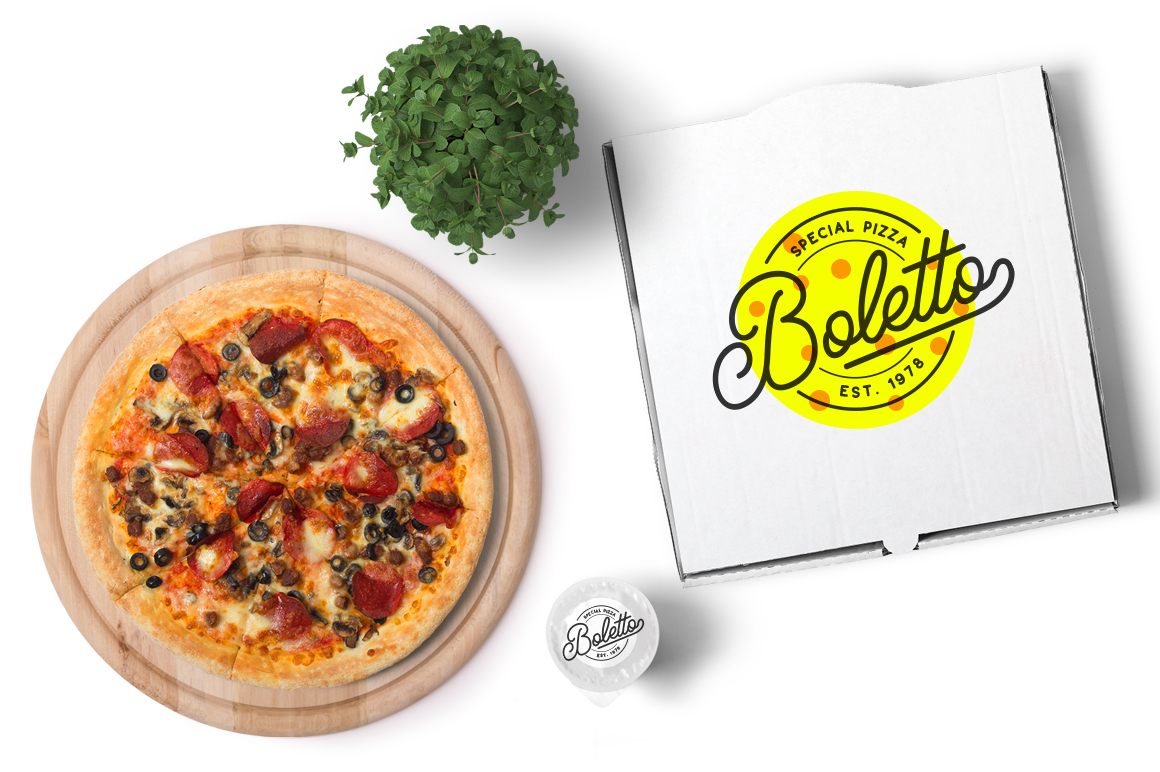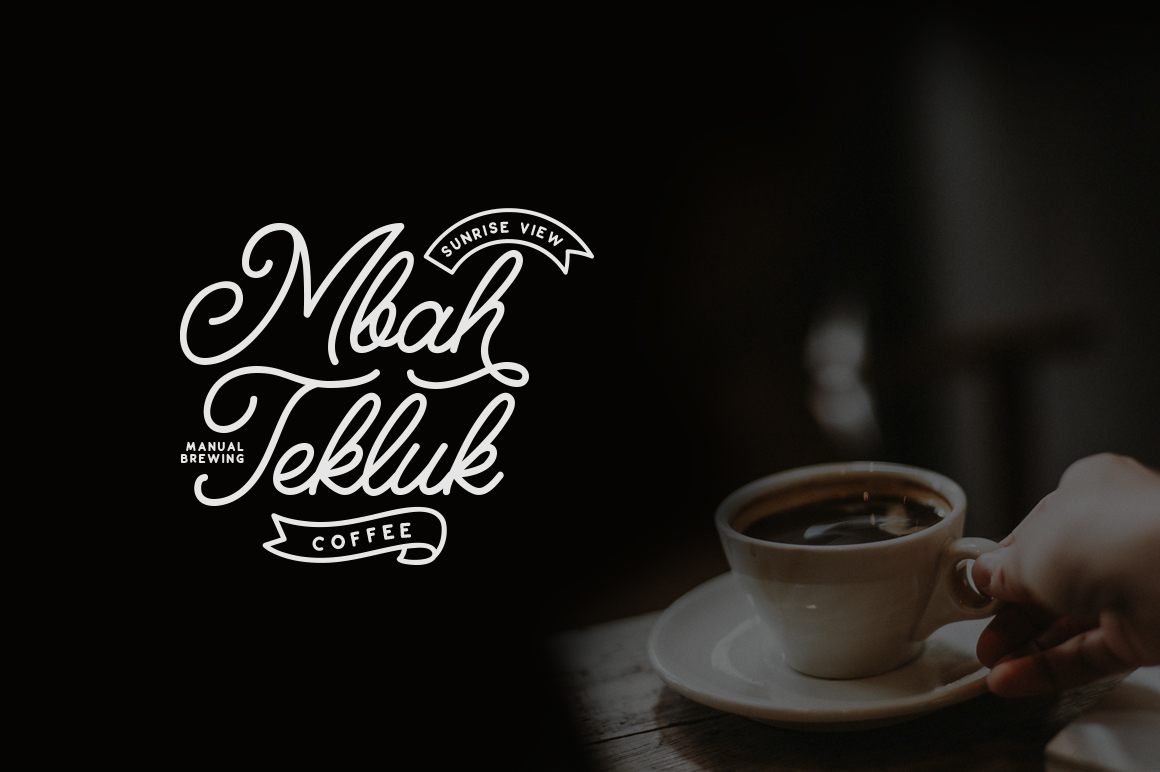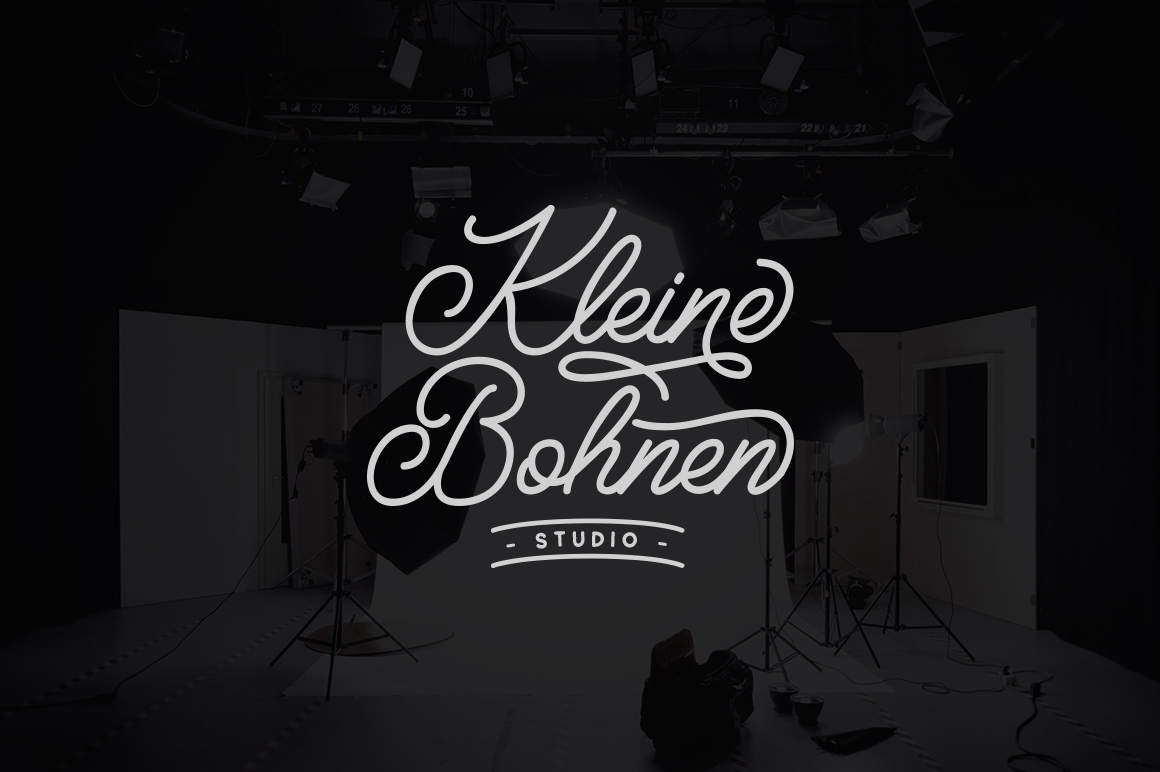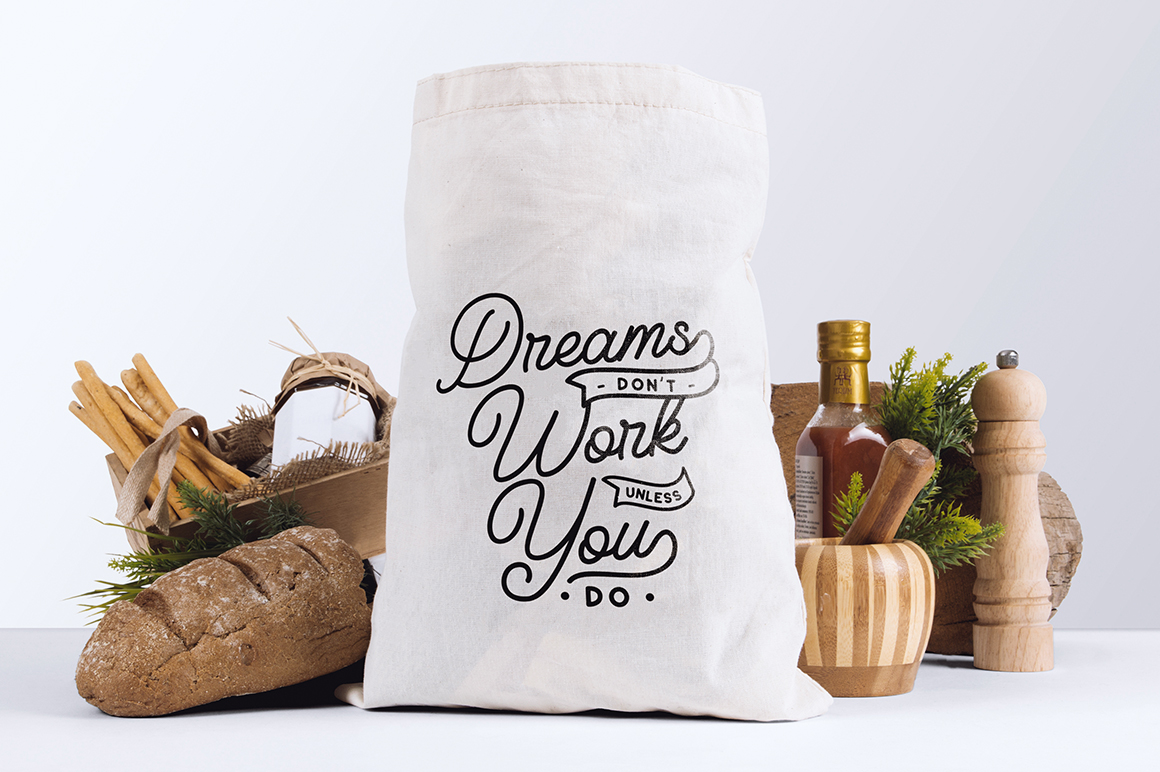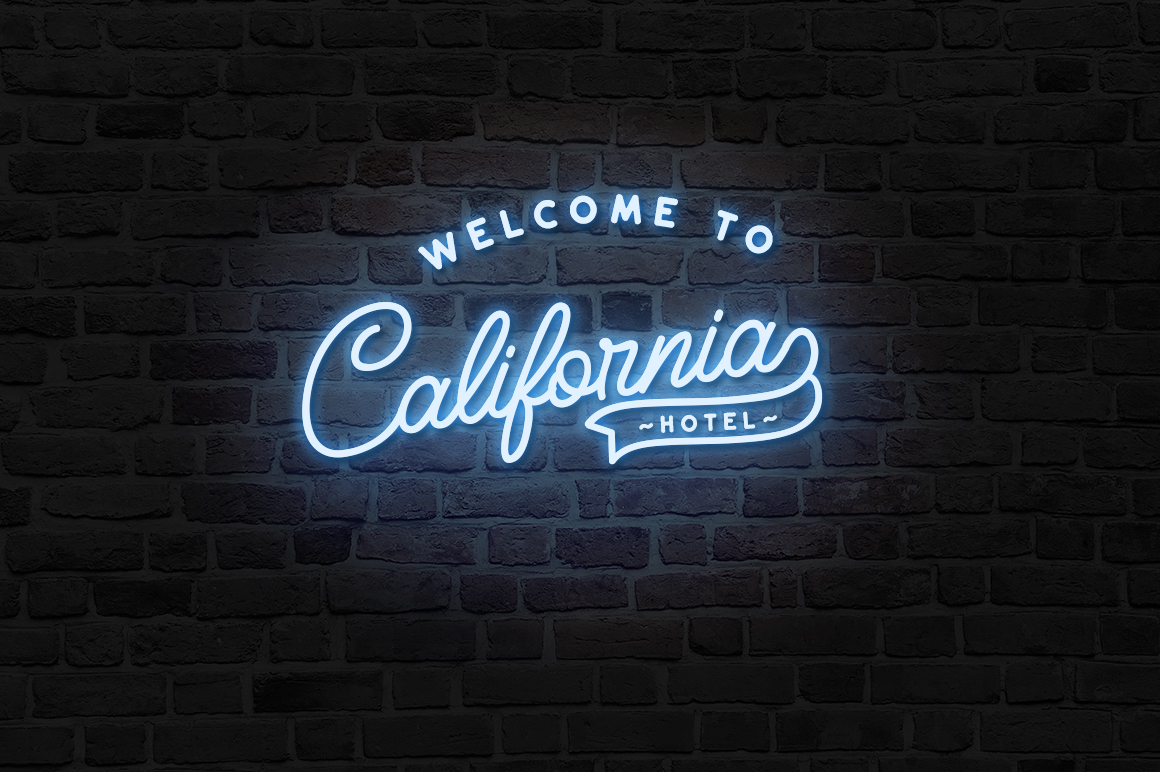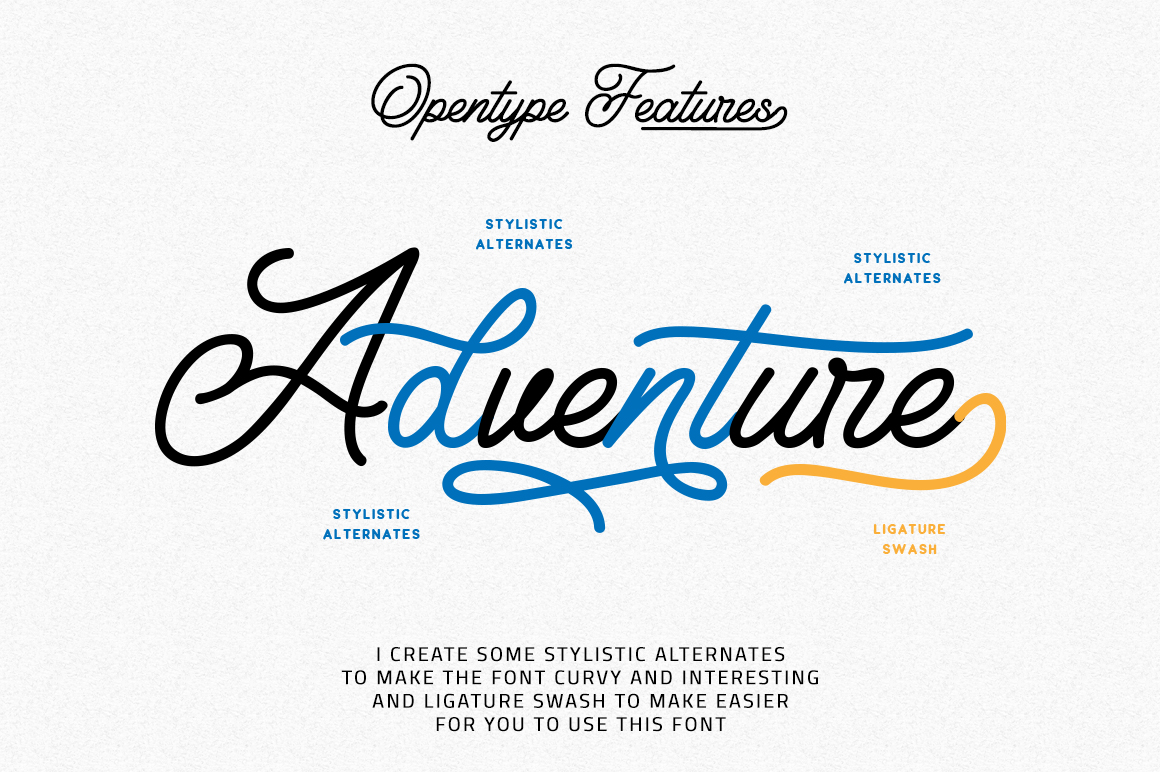
Introducing Felician Font: Elevate Your Designs with Modern Elegance
Are you on the hunt for a font that exudes modern sophistication and versatility? Look no further than Felician, a stunning monoline style font perfect for everyday use. In this article, we’ll dive into the world of Felician, exploring its features, benefits, and uses, making it a must-have for designers and crafters alike.
What is Felician Font?
Felician is a sleek and contemporary monoline font designed to bring a touch of elegance to your designs. Its clean lines, subtle curves, and balanced proportions make it an excellent choice for a wide range of applications, from branding and advertising to packaging and digital media.
Key Features of Felician Font
Felician is more than just a beautiful font – it’s packed with features that make it incredibly versatile and user-friendly. Some of its standout features include:
- Stylistic Alternates: Felician comes with a range of stylistic alternates, allowing you to add a unique twist to your designs and tailor the font to your specific needs.
- Ligatures: The font features a set of ligatures, which help to create a more fluid and natural look, perfect for titles, headings, and other display text.
- Swashes: Add a touch of flair to your designs with Felician’s swashes, ideal for creating eye-catching titles and emphasizing key messages.
- Multilingual Support: Felician supports multiple languages, making it an excellent choice for global brands and designers working with international clients.
Benefits of Using Felician Font
So, why choose Felician for your design projects? Here are just a few benefits of using this exceptional font:
- Improved Readability: Felician’s monoline design ensures excellent readability, even at smaller font sizes, making it perfect for body text and captions.
- Enhanced Creativity: With its range of stylistic alternates, ligatures, and swashes, Felician offers endless opportunities for creative experimentation and customization.
- Consistency: The font’s consistent line width and carefully crafted letterforms ensure a cohesive look and feel across your designs.
- Time-Saving: Felician’s extensive feature set means you can achieve professional-looking results without spending hours on tedious font customization.
Who Can Benefit from Felician Font?
Felician is an excellent addition to any designer’s toolkit, regardless of their specific niche or industry. Here are some professionals who can benefit from using Felician:
- Graphic Designers: Create stunning logos, brochures, and branding materials with Felician’s modern, sophisticated aesthetic.
- Digital Designers: Use Felician to craft beautiful, user-friendly interfaces for websites, mobile apps, and other digital products.
- Crafters and Makers: Add a touch of elegance to your handmade products, such as stationery, packaging, and textiles, with Felician’s unique letterforms.
- Marketing and Advertising Professionals: Create eye-catching ad campaigns, social media graphics, and promotional materials with Felician’s attention-grabbing design.
| Font Name | Felician Font |
| Author | Weape Design |
Felician font is a game-changer for designers and crafters looking to elevate their designs with a modern, monoline style font. With its impressive feature set, versatility, and ease of use, Felician is sure to become a go-to font in your collection. Whether you’re working on a branding project, creating digital content, or crafting handmade products, Felician is the perfect choice for adding a touch of sophistication and elegance to your work.